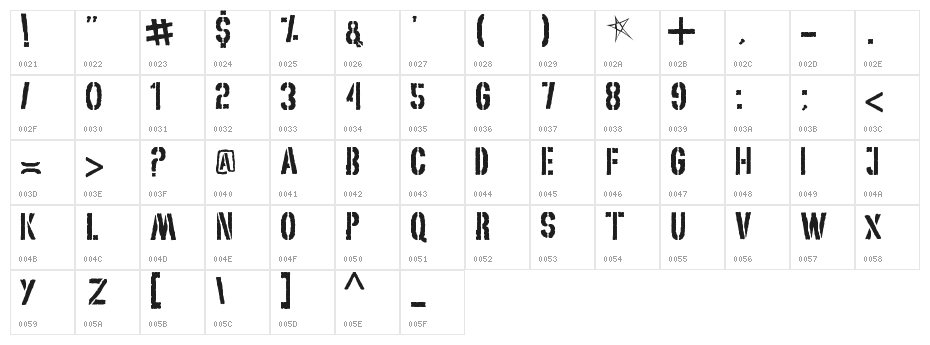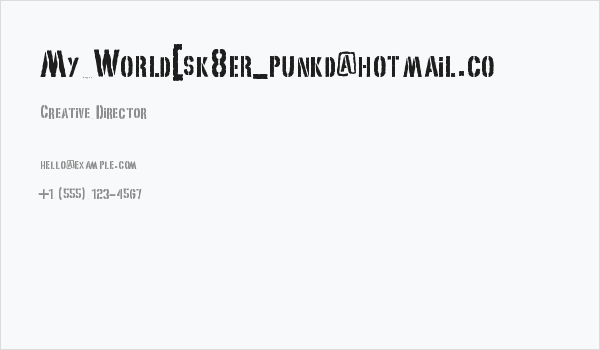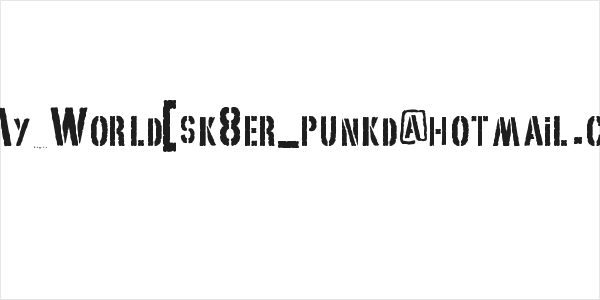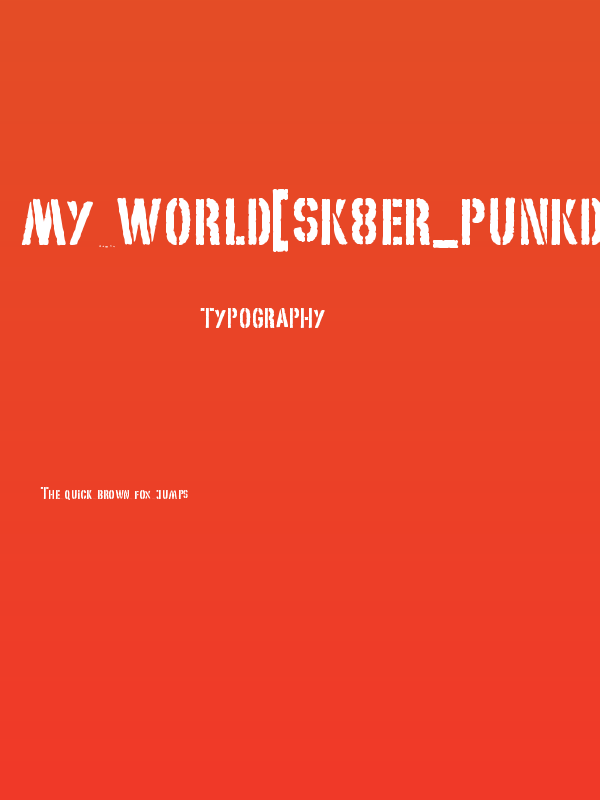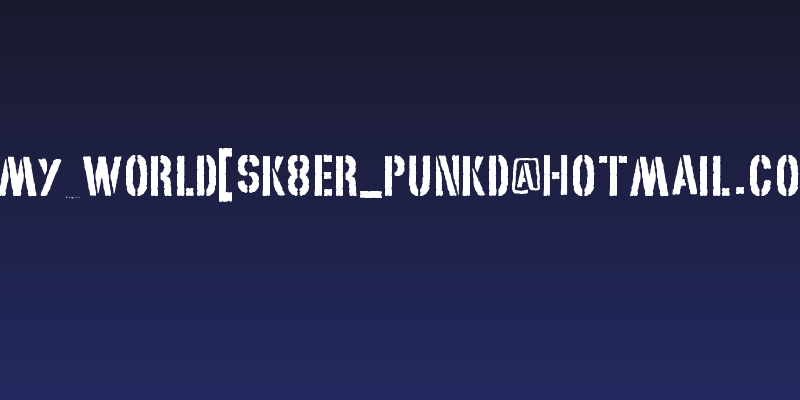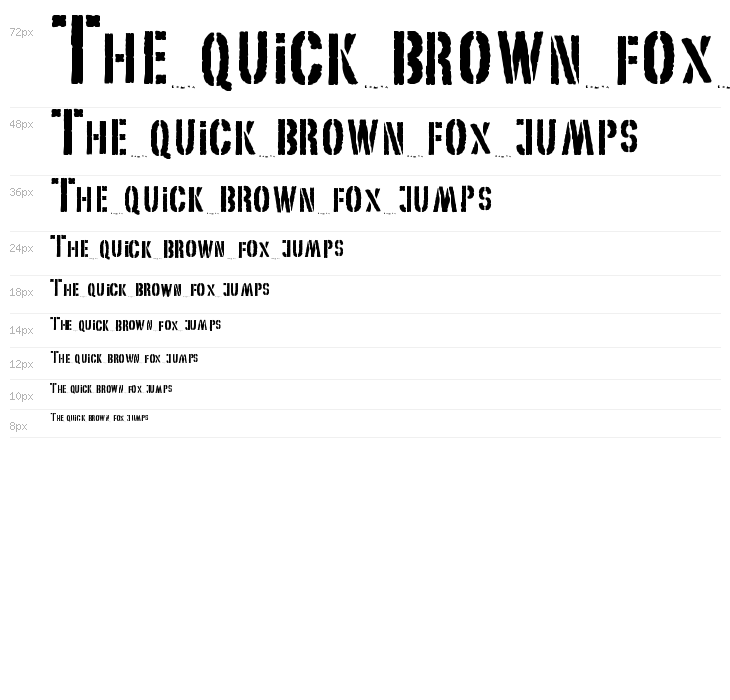
My World[sk8er_punkd@hotmail.co Font
My World[sk8er_punkd@hotmail.co Description
This font features a bold, distressed style with a stencil-like appearance, reminiscent of urban graffiti and punk aesthetics. The characters are rugged and uneven, giving a raw and edgy feel. The uppercase and lowercase letters maintain a consistent design, with jagged edges and a worn texture that suggests a rebellious, non-conformist attitude. The numbers and special characters follow the same theme, enhancing the overall gritty look. This font is ideal for projects that aim to convey a sense of toughness, individuality, and street culture.
| Overall Style | Urban, Punk, Edgy |
| Proposed Projects | Ideal for album covers, streetwear branding, skateboarding events, and punk-themed posters. |